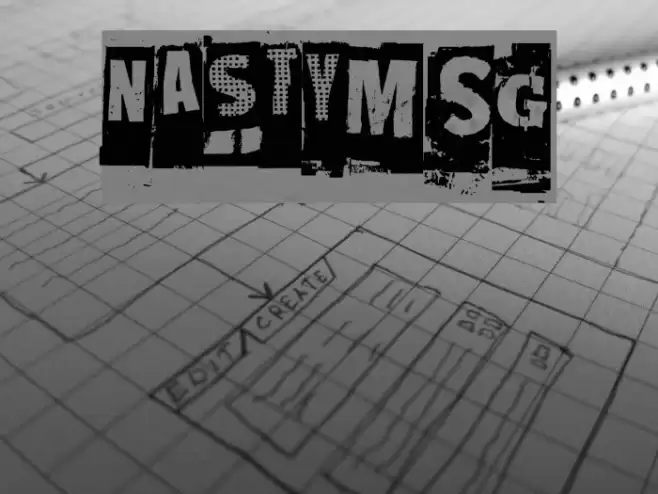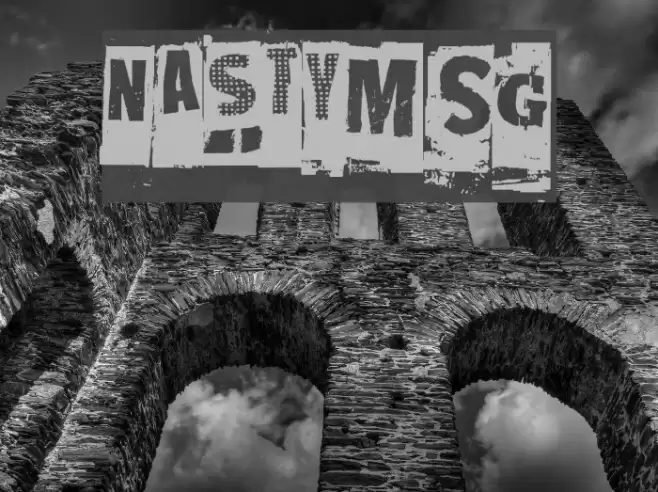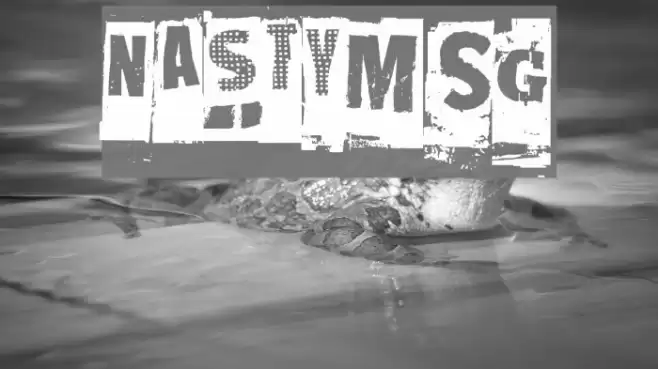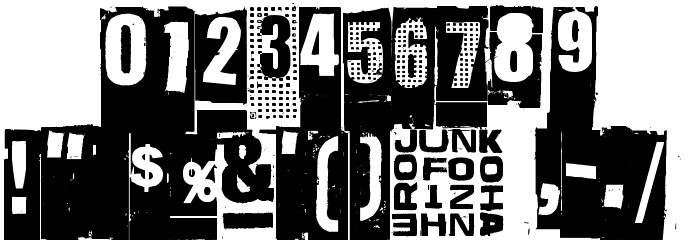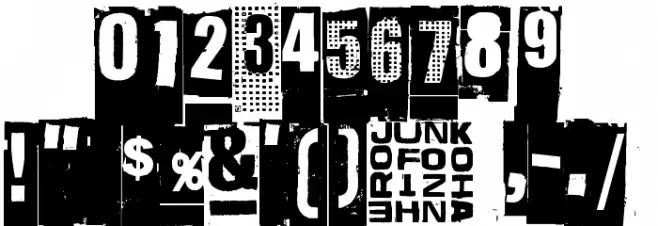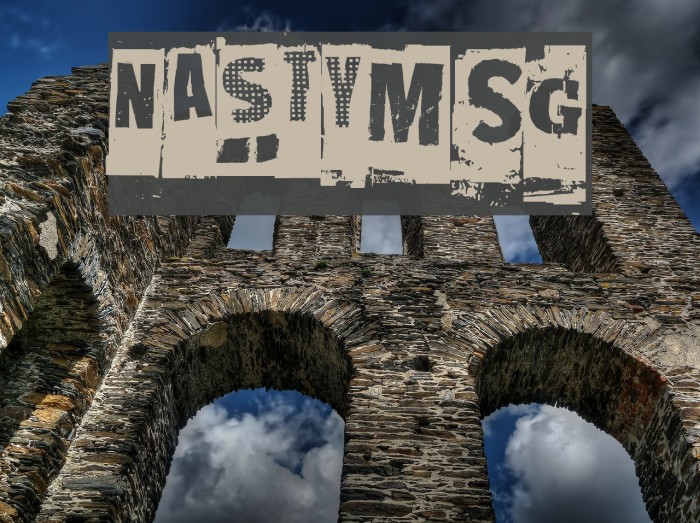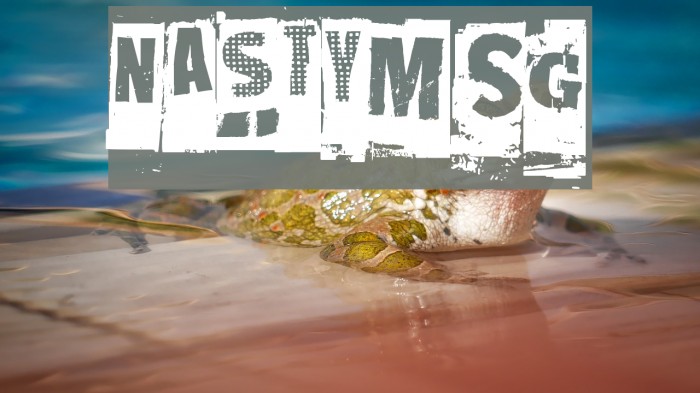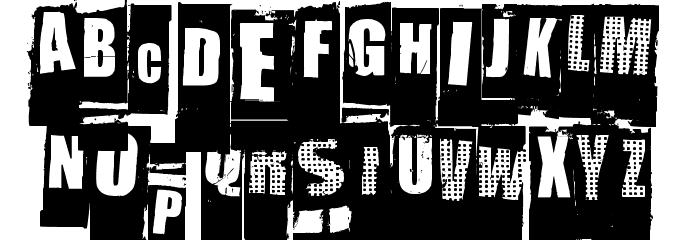
NastyMSG Font
NastyMSG Description
This font features a bold, distressed style reminiscent of cut-out letters from magazines or newspapers, giving it a gritty, urban feel. Each character appears to be individually crafted with varying textures and imperfections, adding to its raw and edgy aesthetic. The uppercase and lowercase letters, along with numbers and special characters, maintain a consistent theme of ruggedness and unpredictability. This font is ideal for projects that require a rebellious or unconventional look, such as posters, album covers, or streetwear branding.
A bold, distressed font with a gritty, urban aesthetic from Distorted Eroded fonts.
- Proposed Projects: Ideal for posters, album covers, streetwear branding, or any project needing a rebellious or unconventional look.
- Overall Style: Urban, Edgy, Distressed